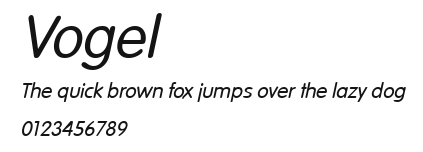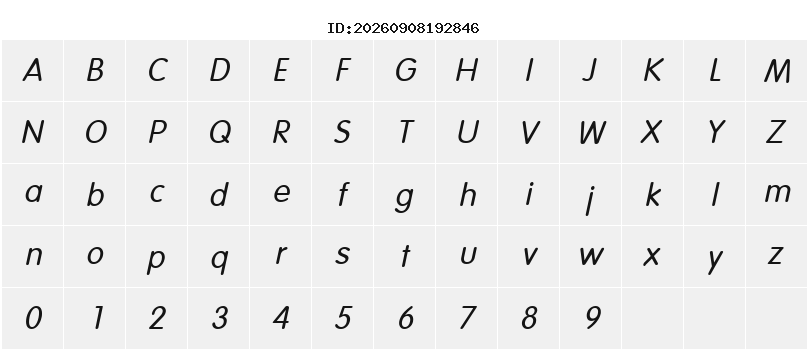
Vogel Preview
• Font Name: Vogel
• Full Font Name: Vogel Italic
About Vogel.ttf
Vogel.ttf is a modern, elegant sans-serif font designed for ultimate readability and visual harmony. Perfect for branding, headlines, web design, and print materials.